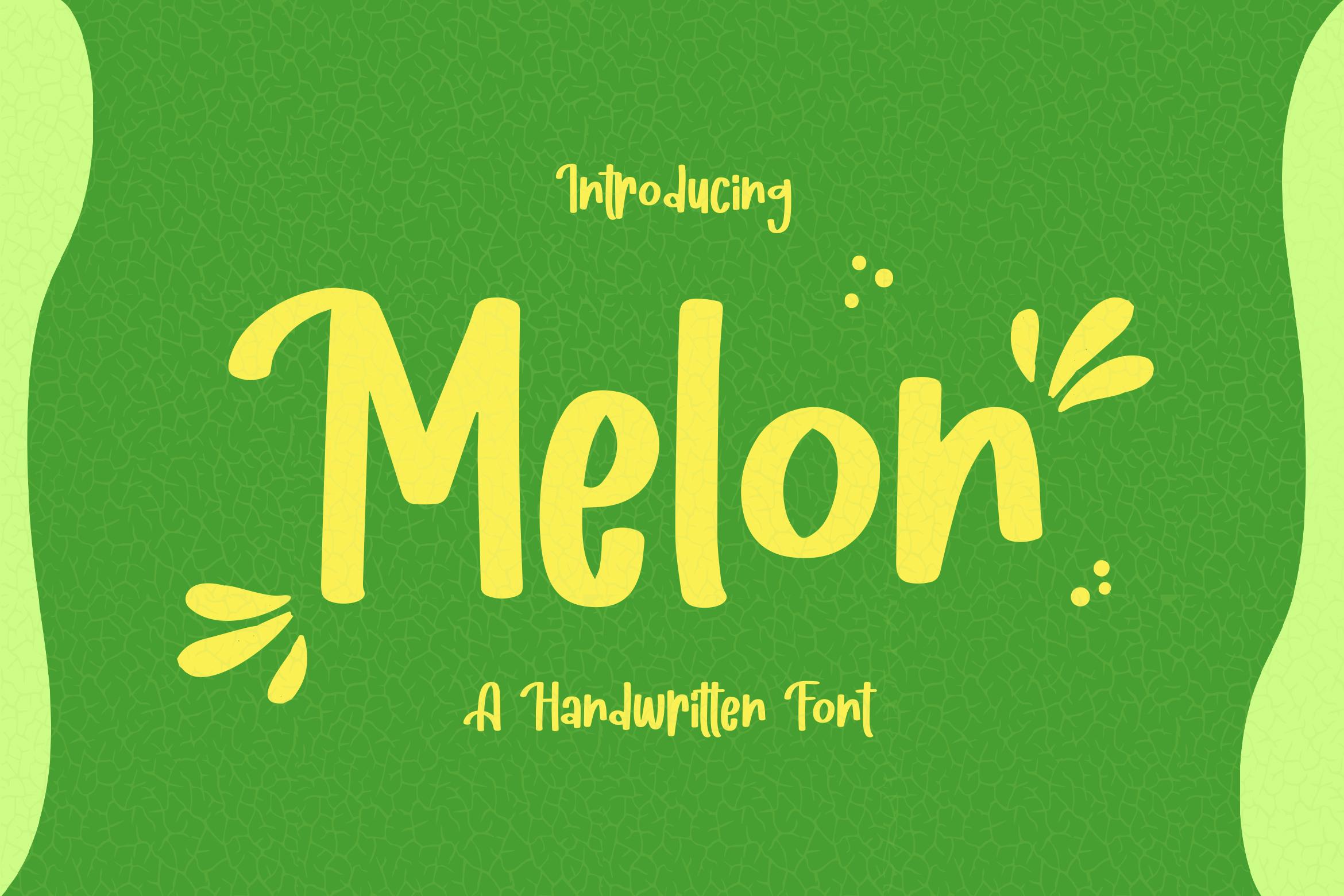
Melon Font Description
Melon is a fancy display font inspired by the melon fruit. This font is perfect for various purposes such as quotes, t-shirt designs, flyers, media channels, cricut, labels, logos etc. This font is PUA encoded which means you can access all of the glyphs and swashes with ease!